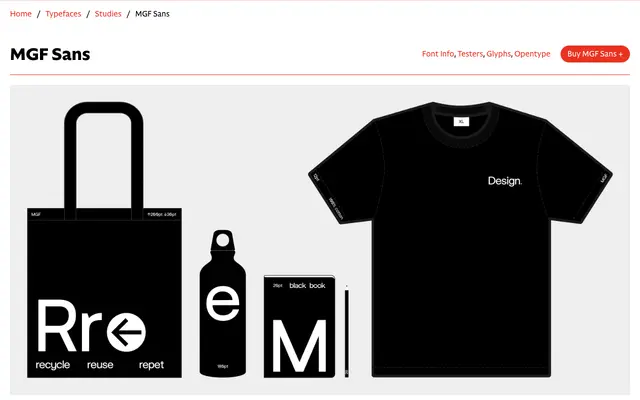
MGF Sans
CAST · Fabrizio Falcone, Alex Bossi · 2022
A geometric grotesque commissioned for the 2022 Milano Graphic Festival, drawing on Swiss Style rigour and the Milanese design tradition of Novarese's Forma.
Designed by Fabrizio Falcone as the custom face for Milano Graphic Festival, MGF Sans pairs the tight spacing and wide, uniform capitals of Swiss typography with geometric alternates for a, i, l, t and squared curves on f and j. The family was extended by Falcone and type developer Alex Bossi for the successor festival BIG, adding a Heavy weight, slanted italics and a variable font. A set of 16 directional arrow glyphs, referencing Vignelli and Noorda's New York subway signage, adds a quietly functional flourish.
The designers describe it explicitly as a geometric grotesque, combining a clear geometric structure with grotesque conventions, citing Swiss Style influences and historical Milanese typefaces such as Forma and Helvetica.